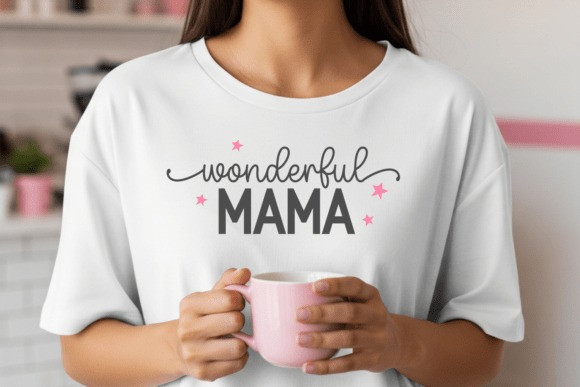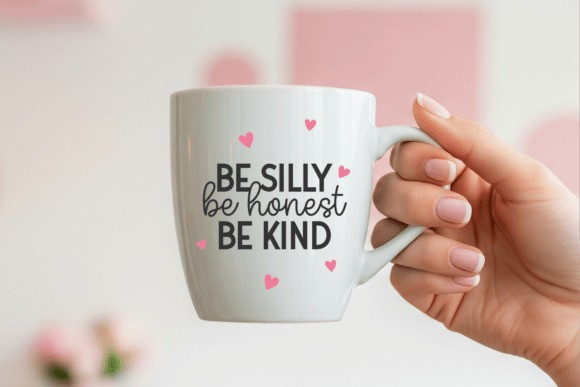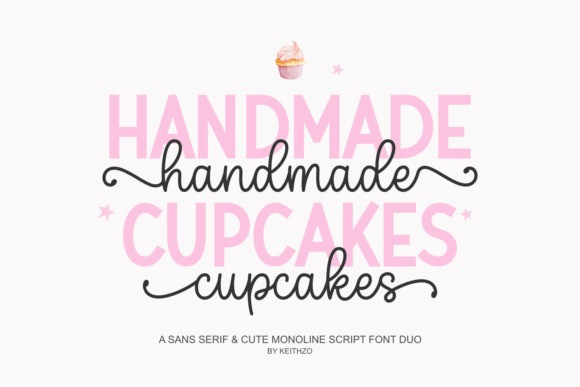
Handmade Cupcakes Font Duo
Handmade Cupcakes Font Duo, a confectionery-inspired font, effortlessly captures the allure of a deliciously baked treat. Versatile and versatile, this font offers two captivating styles: a crisp sans-serif and a quirky monoline, making it the perfect match for designs that exude sophistication, modernity, and enchanting charm.
With a rich iconography and multilingual compatibility, Handmade Cupcakes blends seamlessly with a variety of apps, including but not limited to Canva, Procreate, Cricut, and Silhouette Studio. Unleash your limitless creative potential by using Handmade Cupcakes on a variety of print and digital media, from fashion apparel like t-shirts and hoodies to practical items like mugs, tote bags, digital planners, and even branded promotional materials.
Explore its various uppercase and lowercase configurations and indulge in the alluring charm that this font exudes, just like a sweet strawberry cake. The Handmade Cupcakes Duo font family is uncut, complete with PUA encoding allowing seamless access to all alternate characters, glyphs and curves. Experience the exquisite sophistication of design with Handmade Cupcakes, inviting you to unleash your creativity.